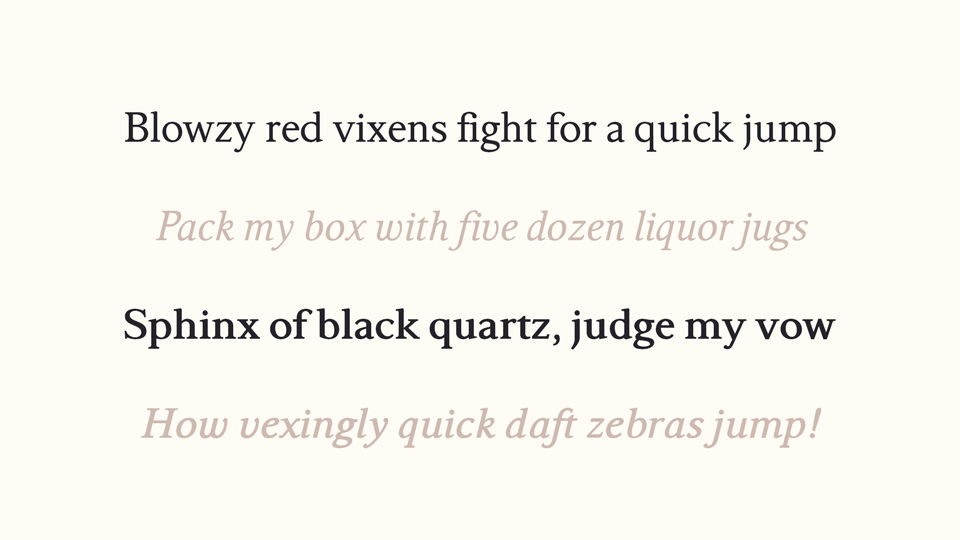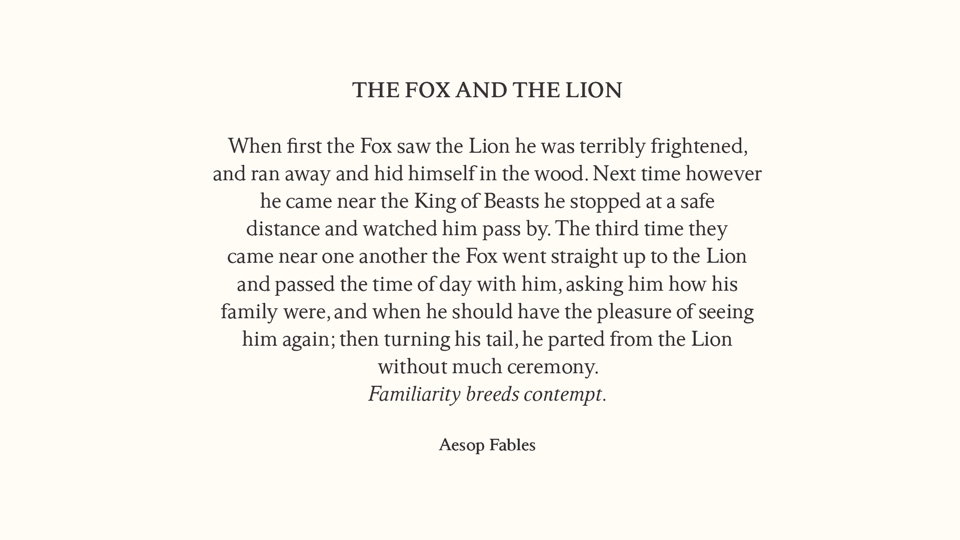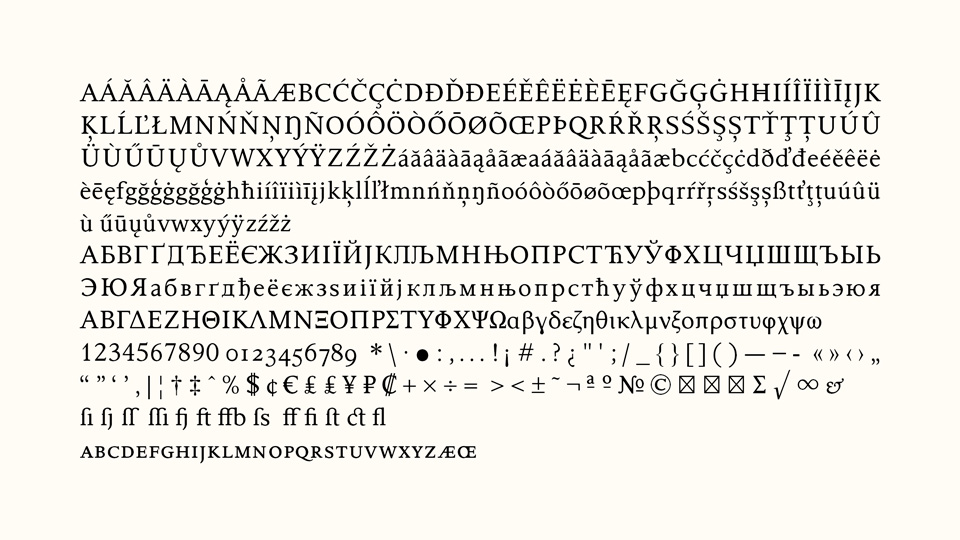
Clara is a serif font family created specially for printing A Dictionary of Editing (2015). The family includes Book, Italic, Bold, Bold Italic, and small capitals, while the character set includes (monotonic) Greek, Cyrillic, ogham, phonetic and mathematical ranges, scribal abbreviations and other specialist characters. The fonts also include some OpenType features (such as ligature substitution, small capitals, and old-style numerals) and variant forms for particular languages.